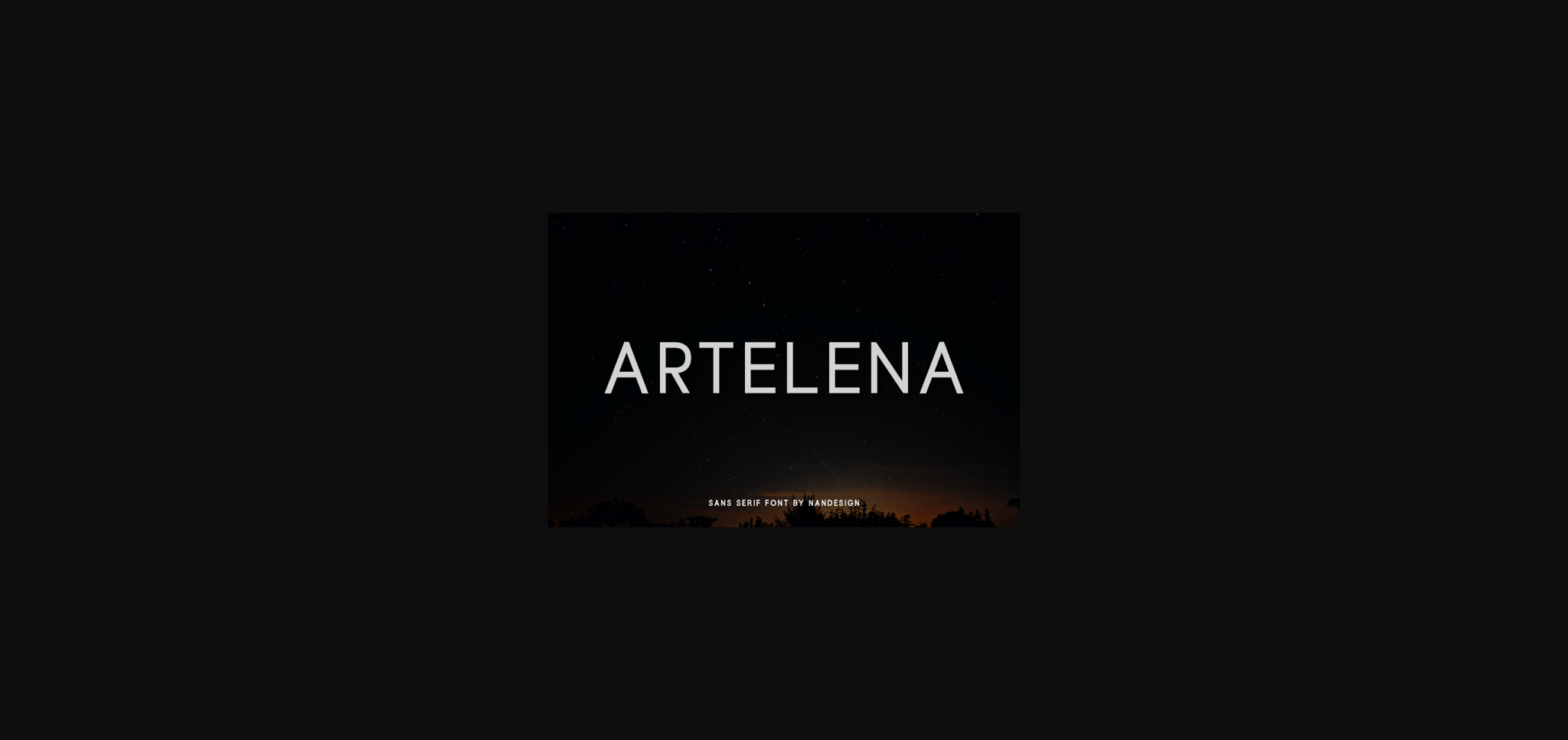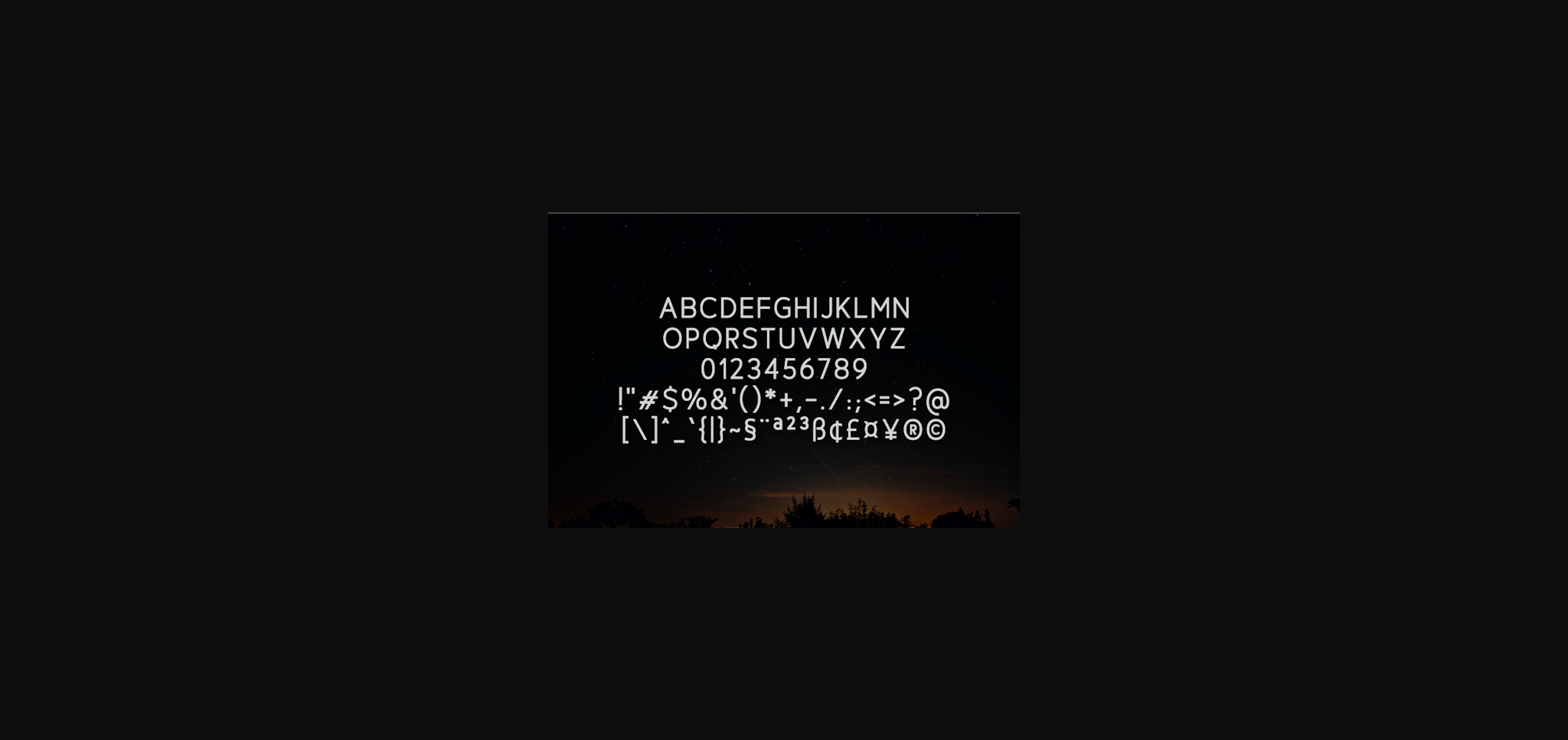
HomeSans Serif FontsArtelena Font Sans Serif Fonts Artelena Font FacebookXPinterestWhatsApp 1 of 4 ... Artelena Font Poster 2... Artelena Font Poster 3... Artelena Font Poster 4... About Artelena Font Artelena is a minimal and neat sans serif font. It can easily be matched to an incredibly large set of projects, so add it to your creative ideas and notice how it makes them stand out! DOWNLOAD NOW People also explored Morningside Monogram Bryan Abimanyu Font Mermaid Font Beauty Unleash Font Cherry Blossom Font Minimalist Font Beewell Font Sayangku Font Charlety Font 388 0 TagsArtelena Font Previous articleKolete FontNext articleTresto Font LEAVE A REPLY Cancel reply Comment: Please enter your comment! Name:* Please enter your name here Email:* You have entered an incorrect email address! Please enter your email address here Website: Save my name, email, and website in this browser for the next time I comment. Personal Use Free Rare Knuckle Personal Use Free Read more about this font Reztop Personal Use Free Read more about this font Love Memories Personal Use Free Read more about this font Neuropol Personal Use Free Read more about this font BLOG Fonts That Capture the Spirit of New York City New York City is more than just a place—it’s an experience, a rhythm, a visual language... To increase your work productivity, choose the most readable fonts. Elegant Wedding Invitation Fonts – Handwritten & Script Fonts Transform Your Website: Elevate Your Typography with 7 Best Web Font Generators